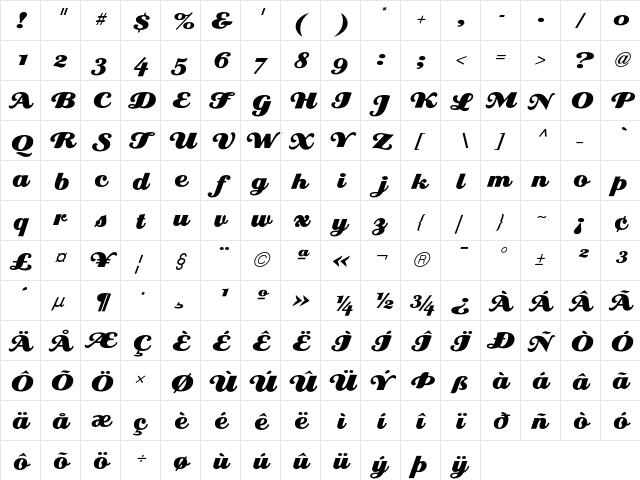
Eclat ICGAlternate Font Preview
Eclat ICGAlternate
Design Context for Eclat Typeface
Eclat is a composed and adaptable typeface that performs quietly and consistently across a wide range of design contexts.